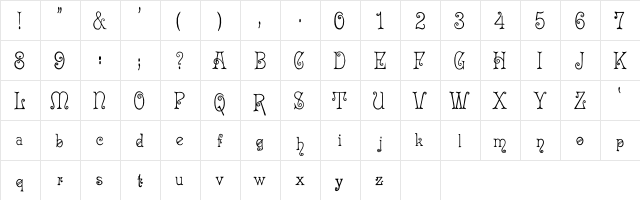
AcadianC Regular
Design Context for AcadianC Typeface
AcadianC is a composed and adaptable typeface that performs quietly and consistently across a wide range of design contexts.